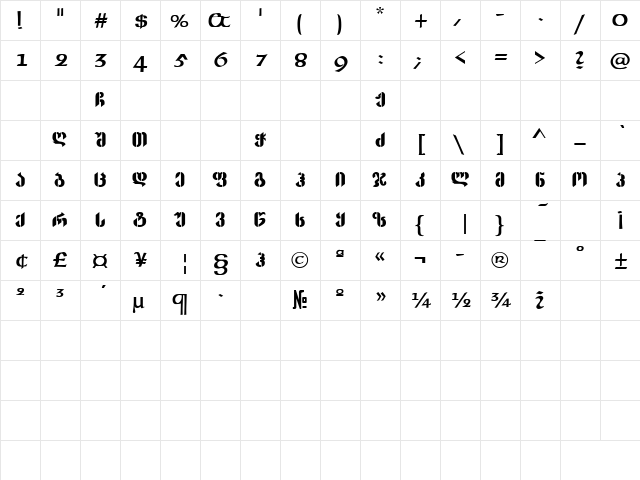
Geo Napraliani Regular
Design Context for Geo Napraliani Typeface
Geo Napraliani is a composed and adaptable typeface that performs quietly and consistently across a wide range of design contexts.